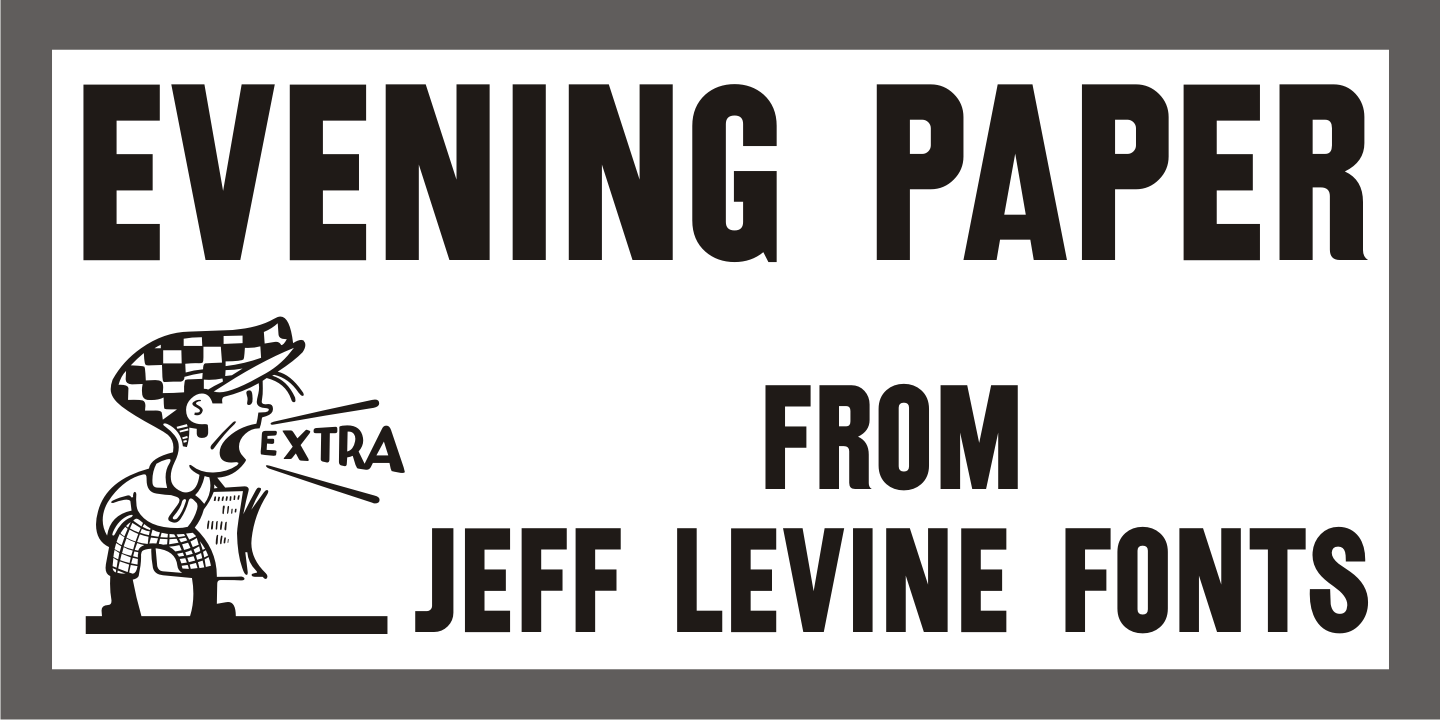
Evening Paper
Evening Paper JNL, one could say, was 'culled from the headlines”. It was. The front page headlines from some 1938 newspapers archived online were the basic model for this font.
The typeface design goes back to a font first issued by Ludlow in the 1920s.